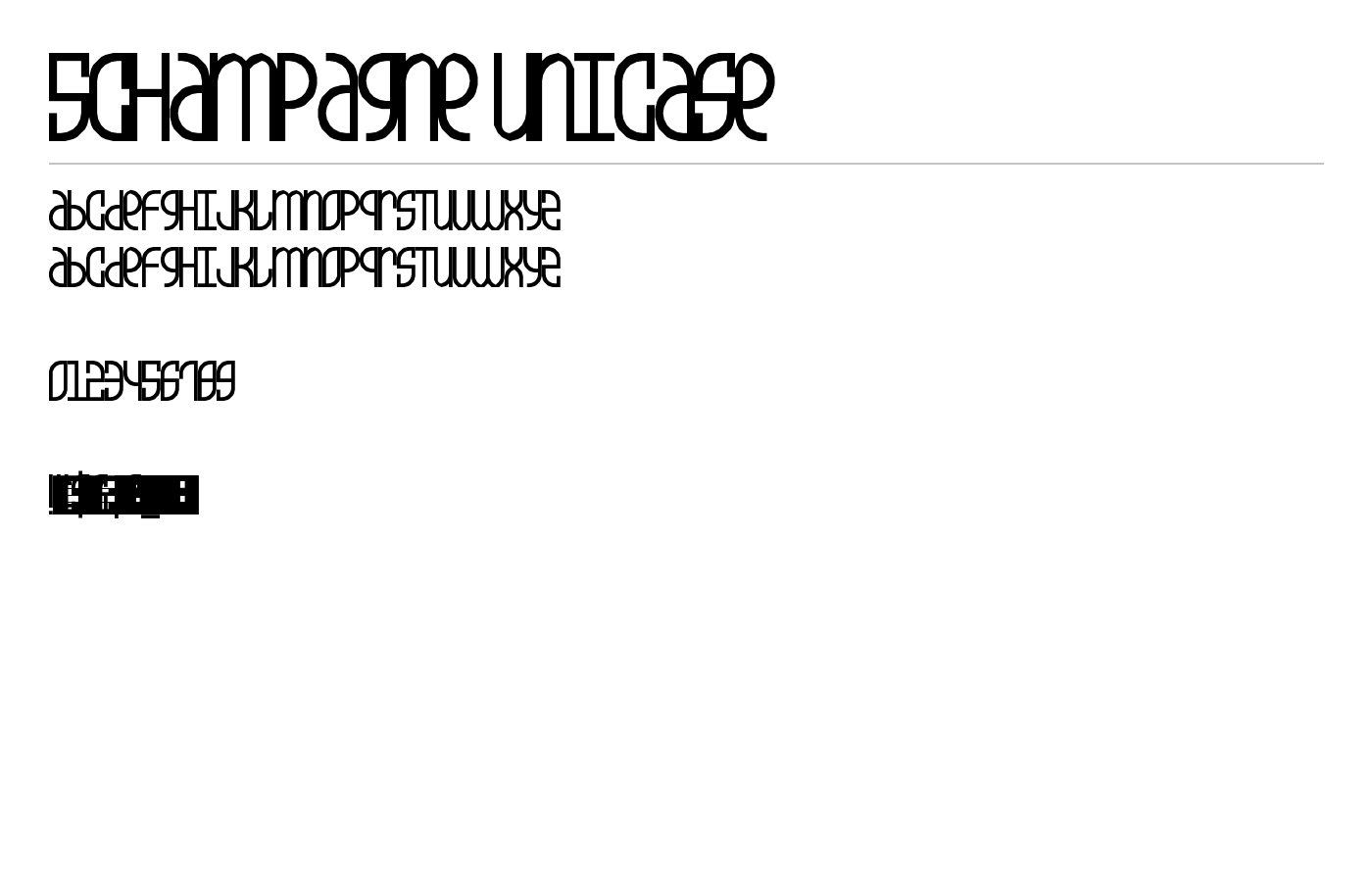
5Champagne Unicase is a unique sans serif font featuring tall, condensed letterforms with a high x-height and minimal stroke contrast, creating a modern and futuristic appearance. Its unicase design blends uppercase and lowercase styles seamlessly, offering a distinctive, artistic vibe ideal for creative branding, headlines, and display use where a sleek, avant-garde statement is needed. This font works best in fashion, tech, and lifestyle projects that seek a bold, innovative edge.
5Champagne Unicase Font
About 5Champagne Unicase Font
| Font family | 5Champagne Unicase Font |
| Designer | Noah - 10 year old typomaniac |